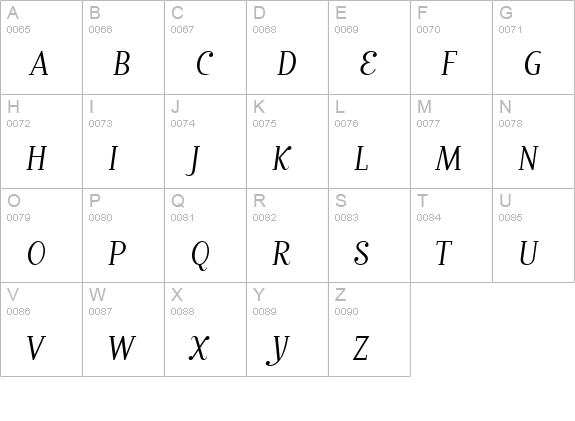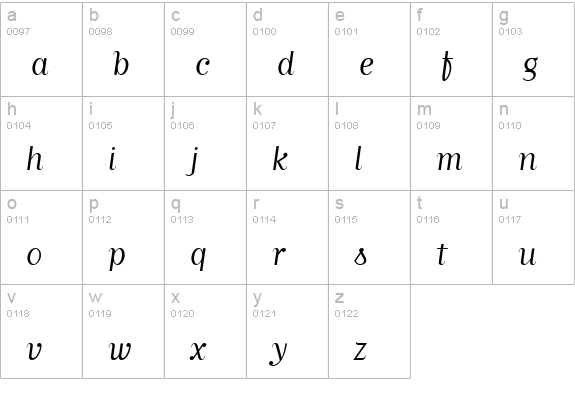
MatrixScriptBookOldstyle Regular Font Details
MatrixScriptBookOldstyle Regular is the standard, neutral variant in the MatrixScriptBookOldstyle typeface family \xE2\x80\x94 well suited to general body text, paragraphs, and standard typographic work.
MatrixScriptBookOldstyle Regular font is a classic and elegant typeface that exudes sophistication and charm. Its timeless design is perfect for adding a touch of vintage flair to your projects. The clean lines and intricate details of this font make it a versatile choice for a wide range of design applications. What sets MatrixScriptBookOldstyle Regular font apart is its unique blend of traditional and modern elements, making it a standout choice for those looking to add a touch of nostalgia to their designs. Whether you're working on a branding project, a website design, or a print publication, this font is sure to impress with its timeless appeal. Best of all, MatrixScriptBookOldstyle Regular font is available for free download at FontsMarket.com, making it accessible to designers of all levels. Don't miss out on the opportunity to enhance your projects with this stunning typeface that seamlessly blends old-world charm with contemporary style. Download MatrixScriptBookOldstyle Regular font today and elevate your designs to new heights.